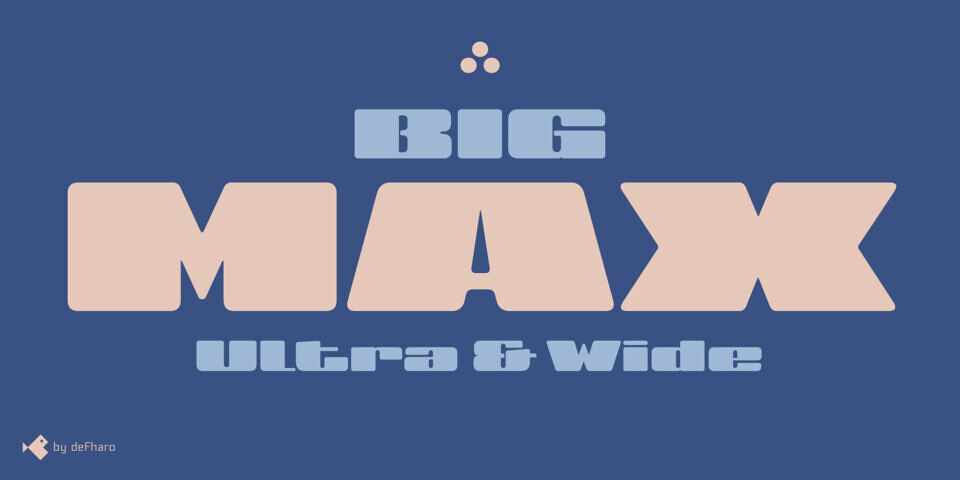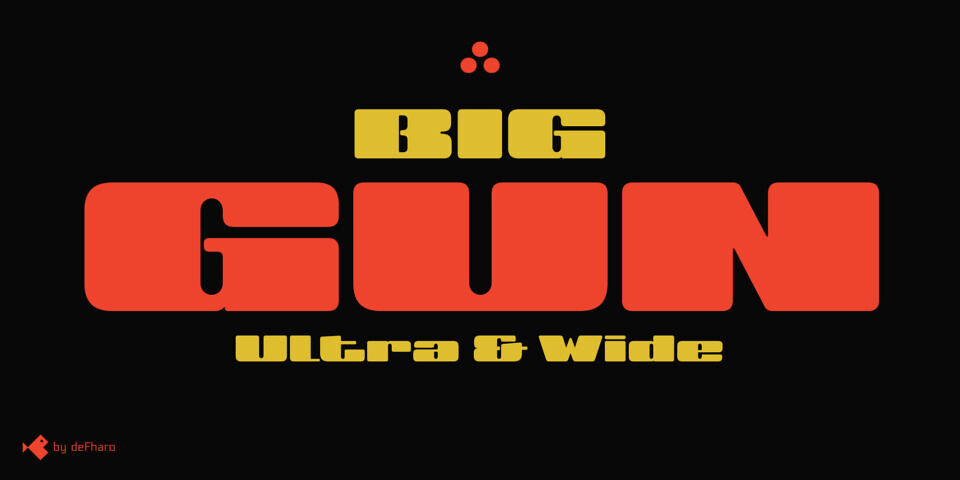
BIG Ultra Font
BIG Ultra & Wide is a bold sans-serif display font with an ultra-wide and ultra-black design, crafted to deliver strong visual impact. It comes in two styles—Roman and Slanted (paid version)—featuring reduced ascenders and descenders for a horizontally dominant look.
Rounded corners add a touch of modern softness to its robust structure. With 646 glyphs, 146 stylistic alternates, and rich OpenType features, this font is perfect for headlines, posters, logos, packaging, and signage where maximum readability and bold personality are essential.
Designed by: Fernando Haro (deFharo)